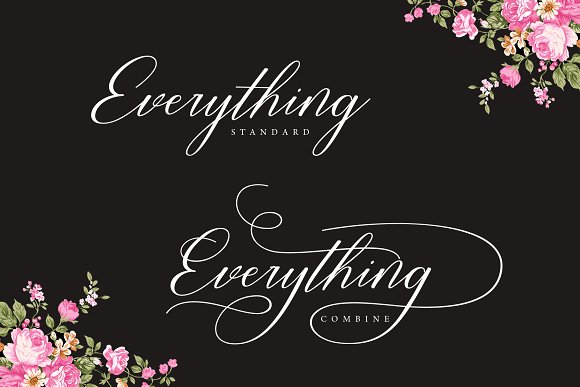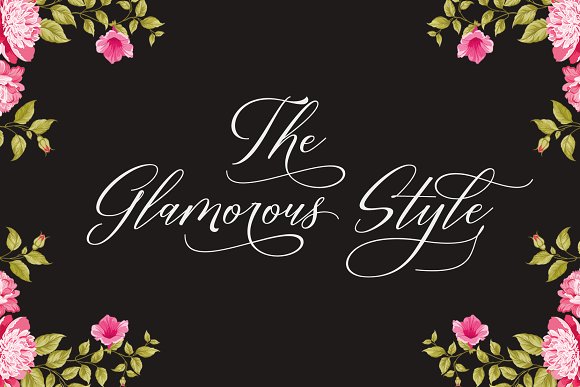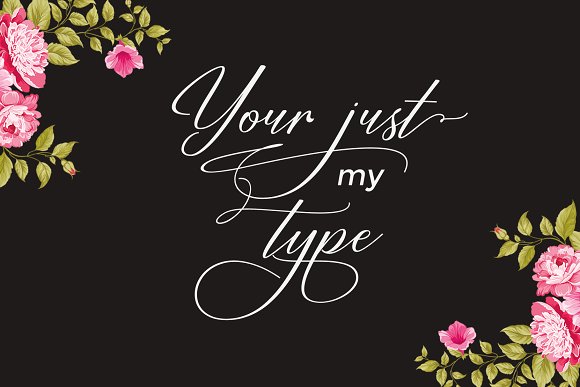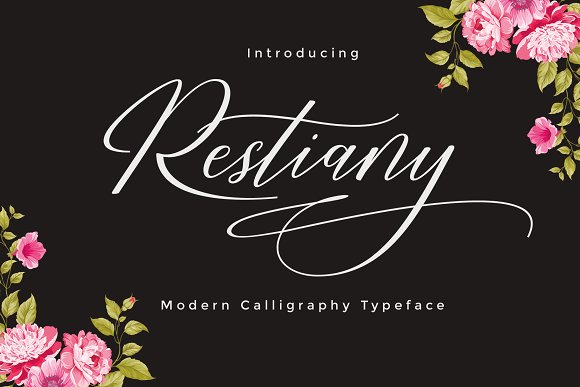
Restiany Script Font
Restiany Script Font – Free Demo
Hi Font Lover! This is a modern calligraphy font with the current handwriting style. It has features that makes the font look more natural and easy to use. Introducing Restiany Calligraphy Font. Restiany Font designed and shared by cooldesignlab. Restiany Script Font is a beautiful and attractive calligraphy handwriting font. You can see from scratches that give a challenging and modern style. You can use this font in your various design products. This font is casual and elegant. Ideal for wedding invitations, signage, headlines, logos, packaging, product branding, etc.